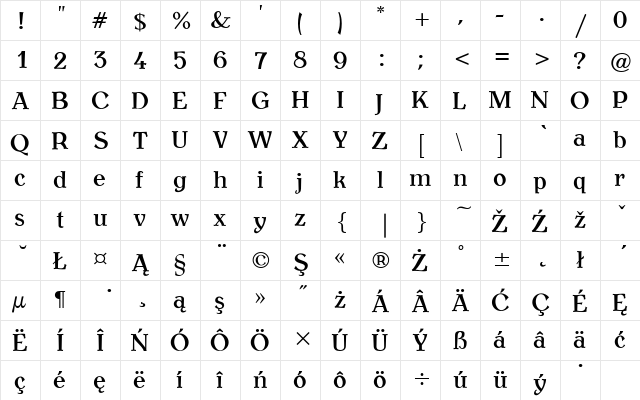
AntykwaTorunska Regular
| Designer | Zygfryd Gardzielewski |
Design Context for AntykwaTorunska Typeface
AntykwaTorunska offers clean, dependable letterforms without strong stylistic allegiance, making it a practical choice for designers who need flexibility.